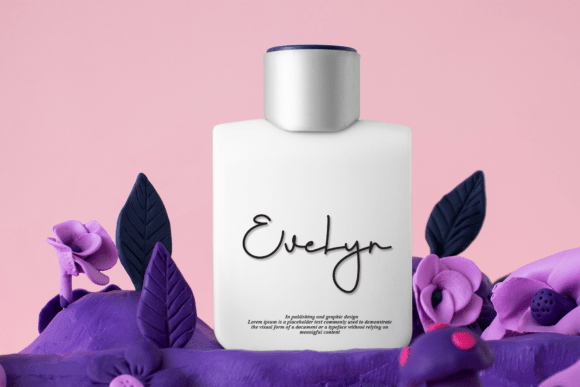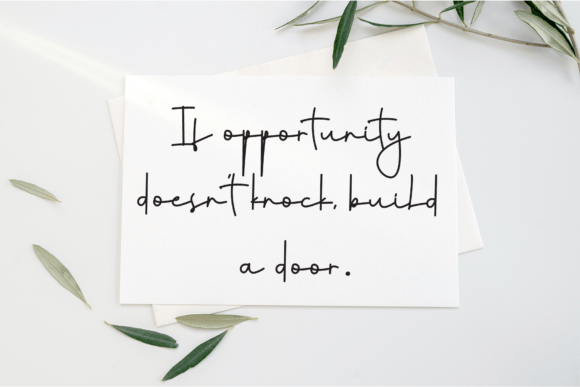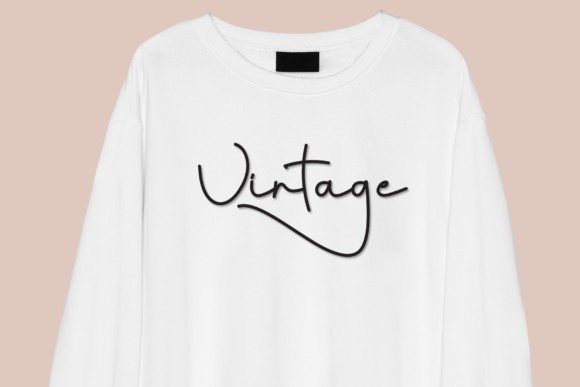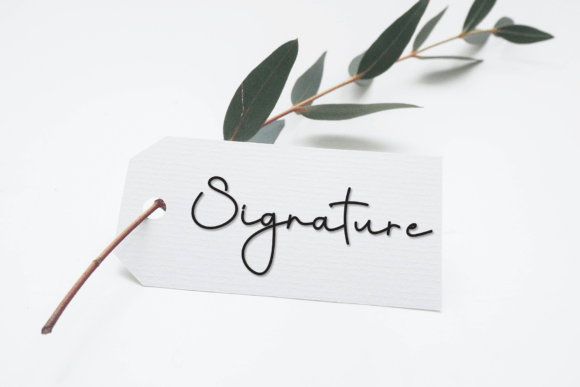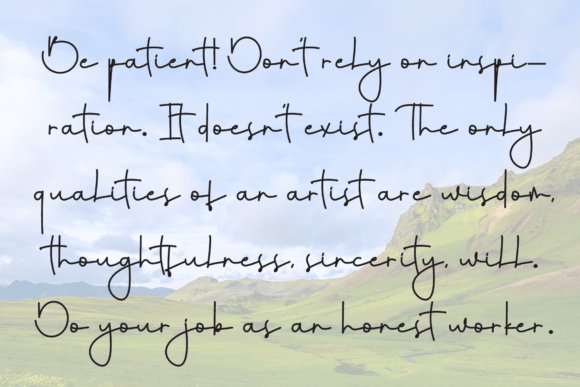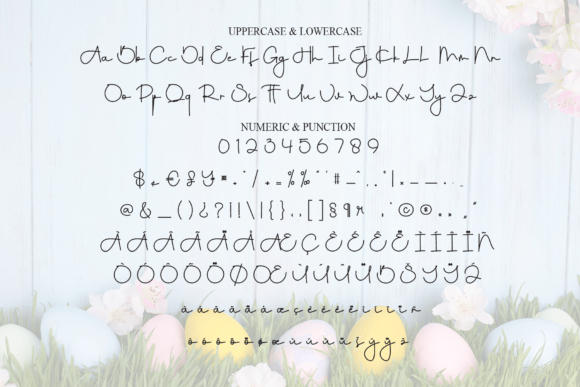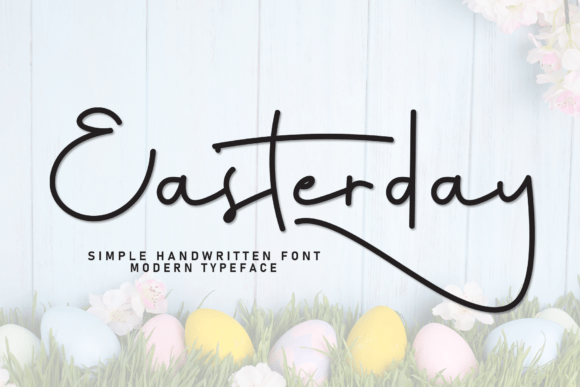
Easterday Font: The Perfect Addition to Your Spring Designs
As the snow melts and flowers start to bloom, designers and crafters begin to look for fresh and inspiring typography to bring their spring creations to life. If you’re on the hunt for a font that’s as sweet as it is stylish, look no further than Easterday Font. This delightful handwritten font is bursting with whimsy and charm, making it the perfect choice for Easter-themed branding, spring designs, greeting cards, DIY crafts, and kids’ projects.
A Font that’s as Unique as it is Versatile
Easterday Font boasts a light and airy feel, thanks to its gentle curves and clean, modern style. Its whimsical handwritten aesthetic is sure to add a touch of personality to any design, from playful Easter egg designs to heartfelt greeting cards. Whether you’re a professional designer or a crafty DIY enthusiast, Easterday Font is sure to inspire your creativity and help you create something truly special.
Perfect for Spring Designs and Easter-themed Branding
There’s something undeniably spring-like about Easterday Font, making it the perfect choice for any design project that’s related to the Easter holiday or the spring season. From Easter egg designs and bunny-themed branding to spring-inspired posters and social media graphics, Easterday Font is the perfect way to add a touch of seasonal charm to your work.
Why Designers and Crafters Love Easterday Font
So, what makes Easterday Font so special? Here are just a few reasons why designers and crafters alike are falling in love with this delightful font:
- Whimsical yet modern style: Easterday Font boasts a unique blend of playfulness and sophistication, making it perfect for a wide range of design projects.
- Easy to read: Despite its whimsical nature, Easterday Font is incredibly easy to read, making it perfect for use in body text, headings, and titles.
- Highly versatile: Whether you’re designing a greeting card, crafting a DIY project, or creating Easter-themed branding, Easterday Font is the perfect choice.
- Perfect for kids’ projects: Easterday Font’s playful and child-friendly aesthetic makes it an excellent choice for kids’ projects, from coloring books to educational materials.
How to Use Easterday Font in Your Designs
Ready to start using Easterday Font in your designs? Here are a few ideas to get you started:
- Easter-themed branding: Use Easterday Font to create adorable Easter-themed branding, from logos to packaging.
- Greeting cards: Add a personal touch to your greeting cards with Easterday Font, perfect for Easter, Mother’s Day, and other spring celebrations.
- DIY crafts: Use Easterday Font to add a touch of personality to your DIY crafts, from handmade Easter eggs to spring-themed decorations.
- Kids’ projects: Bring Easterday Font into your kids’ projects, from coloring books to educational materials.